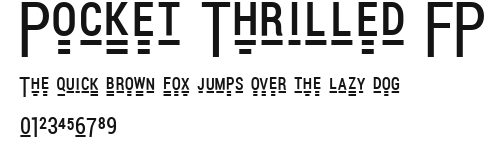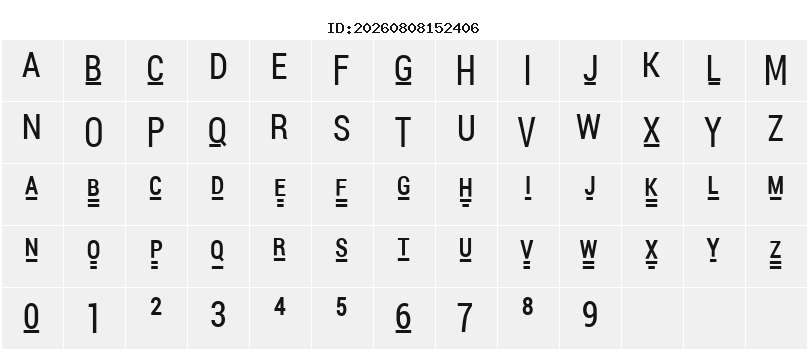
• Font Name: Pocket Thrilled FP
• Designer: Azmi Kamarullah
About Pocket Thrilled FP.ttf
Pocket Thrilled FP.ttf is a modern, elegant sans-serif font designed for ultimate readability and visual harmony. Perfect for branding, headlines, web design, and print materials.